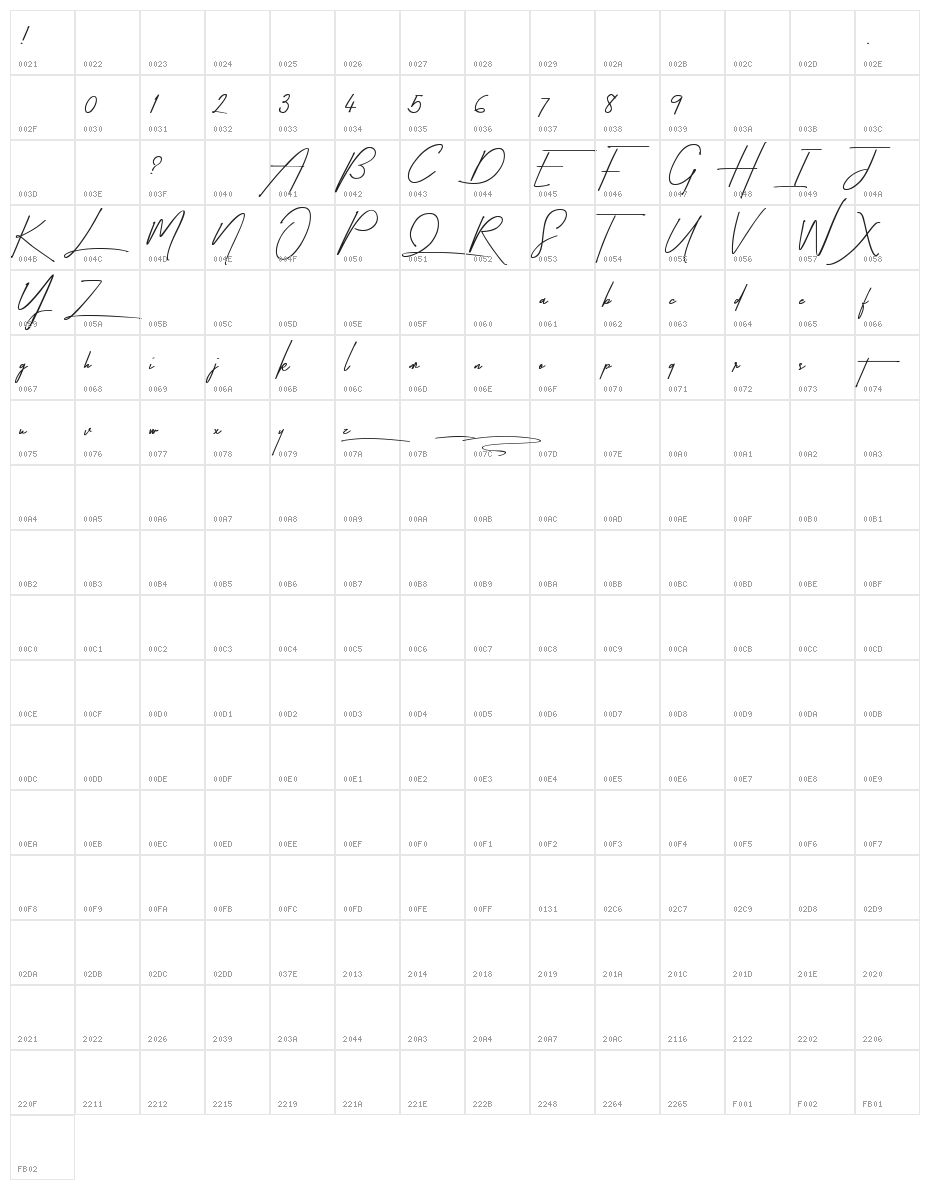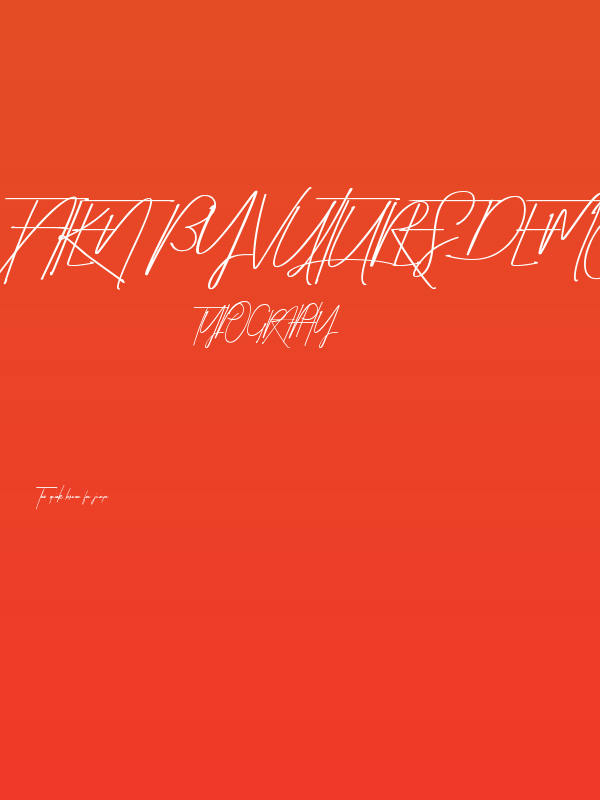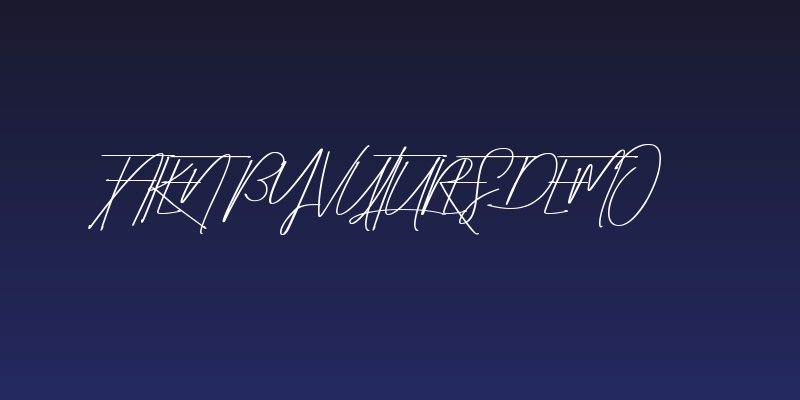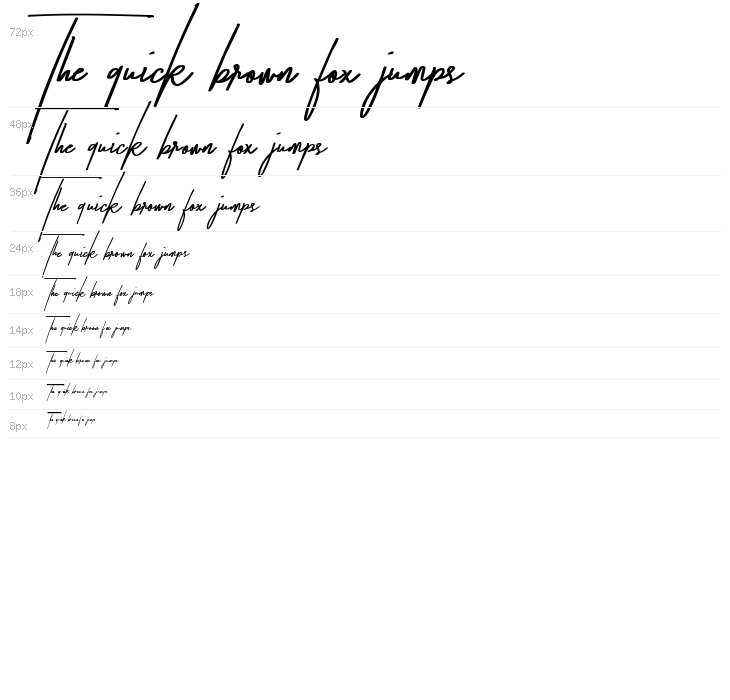
Taken by Vultures Demo Font
Taken by Vultures Demo Description
This font features a highly stylized, decorative script with elongated, flowing lines and a sense of dynamic movement. The uppercase letters are particularly striking, with exaggerated loops and strokes that create a sense of elegance and drama. The lowercase letters maintain a consistent style, with smooth curves and a slightly more restrained design. The numerals are clear and maintain the overall aesthetic, while the special characters add a touch of flair. This font is ideal for projects that require a bold, artistic statement, such as branding, invitations, or editorial design.
| Proposed Projects | Ideal for branding, invitations, editorial design, and artistic projects. |